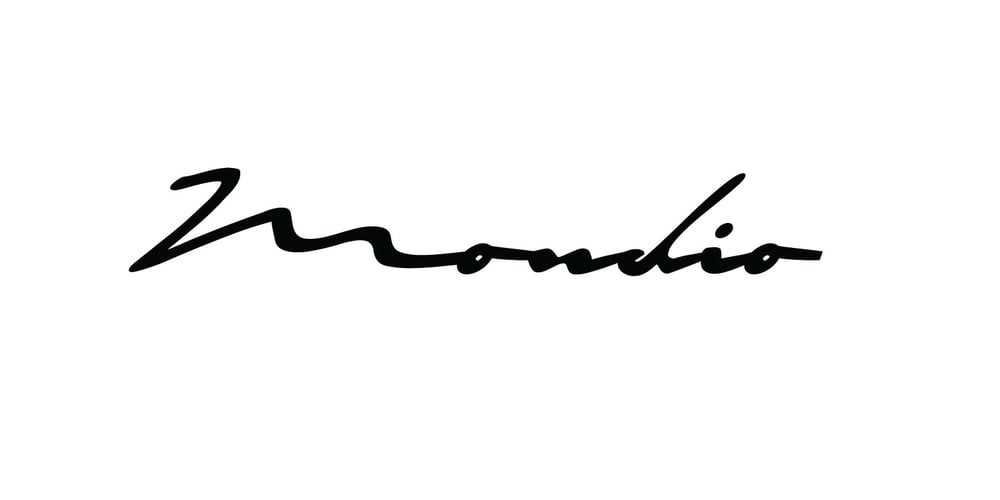
Mondio
Mondio font
Mondio Font Family was designed by Sigit Nur Wicaksono and published by Gittype. Mondio contains 1 styles and family package options. Mondio, it is a low script hand writing font. handwritten to give your designs a free-flowing and stylish design. , this font is a delightful addition to any project!